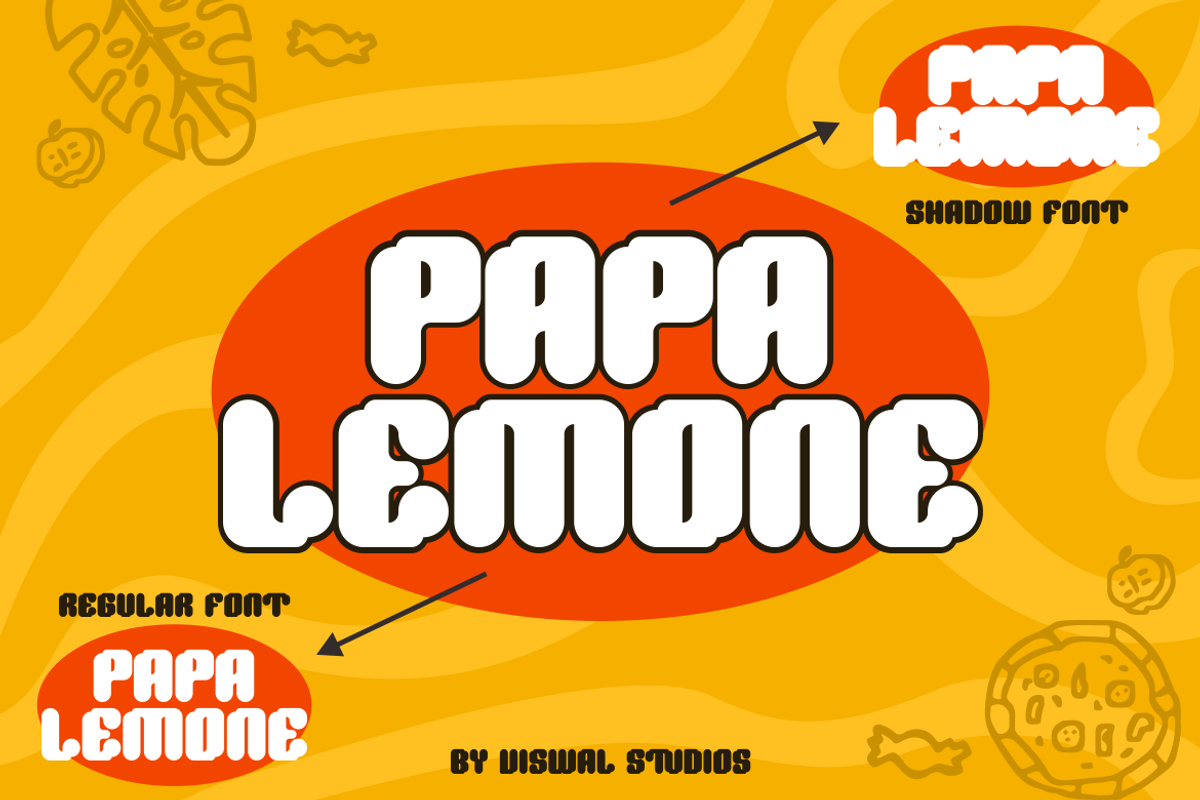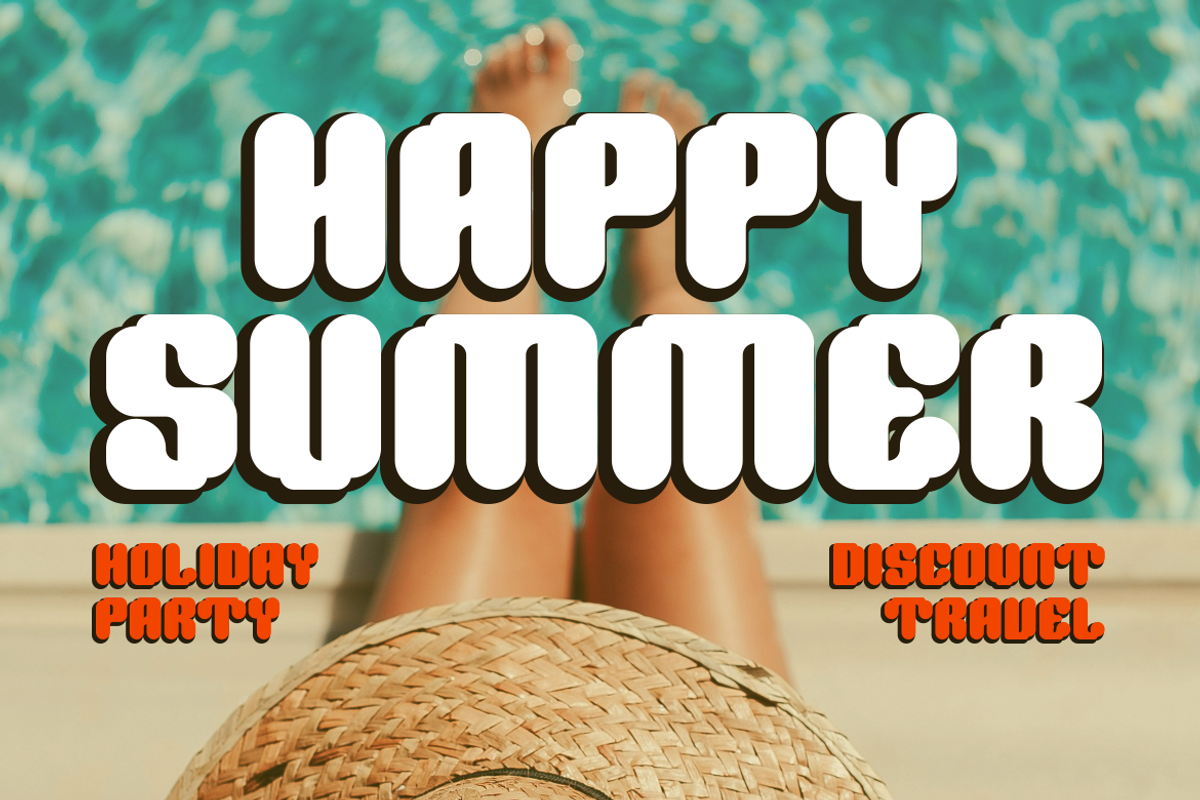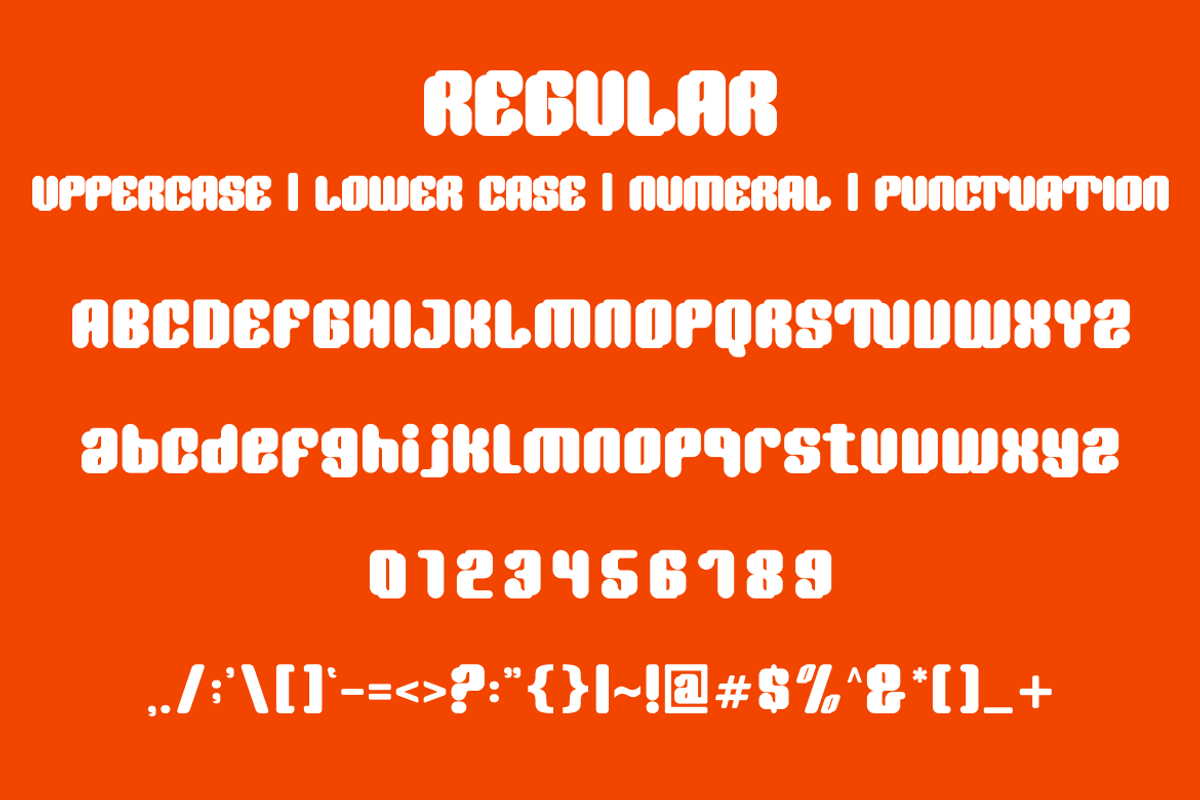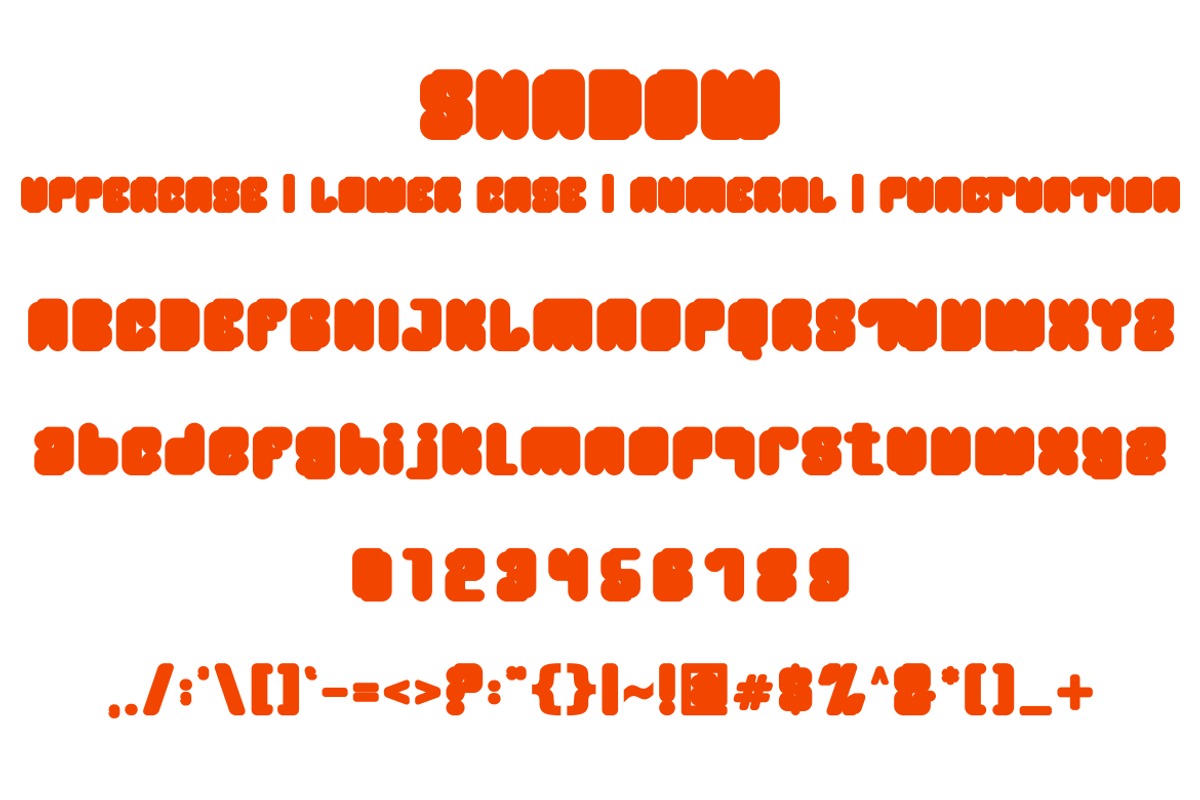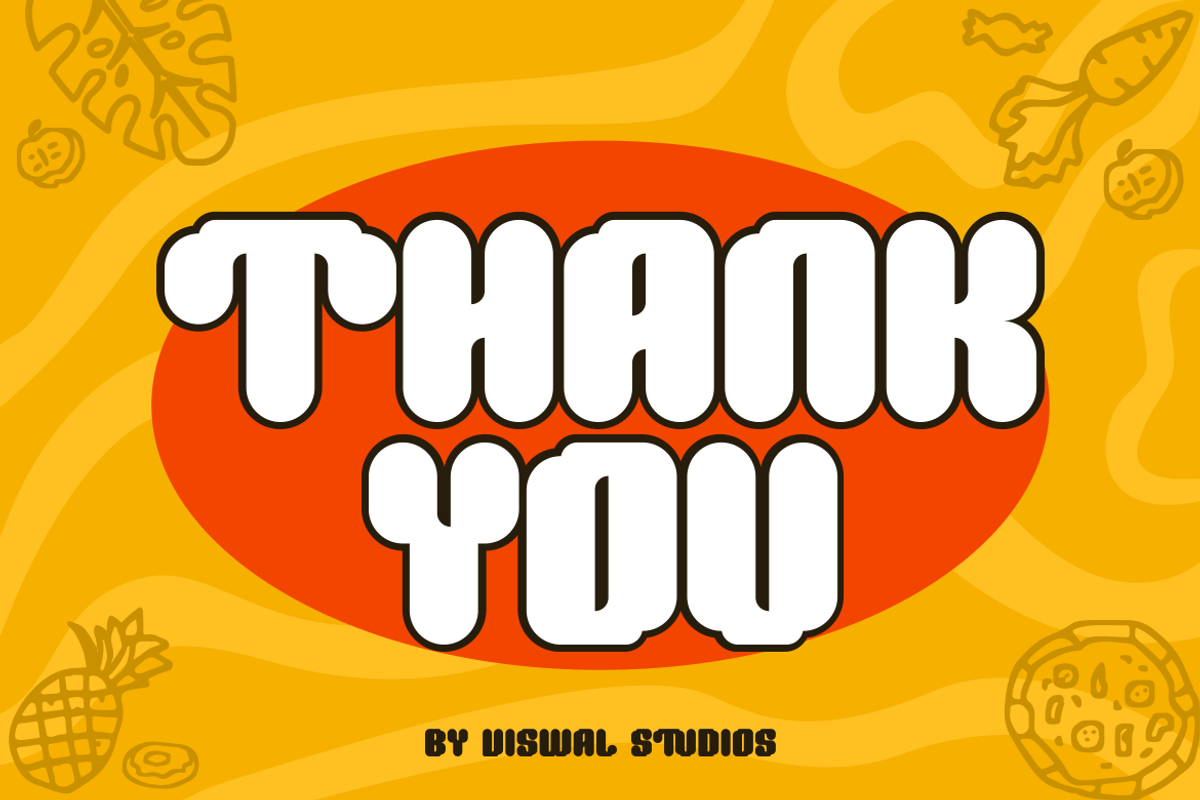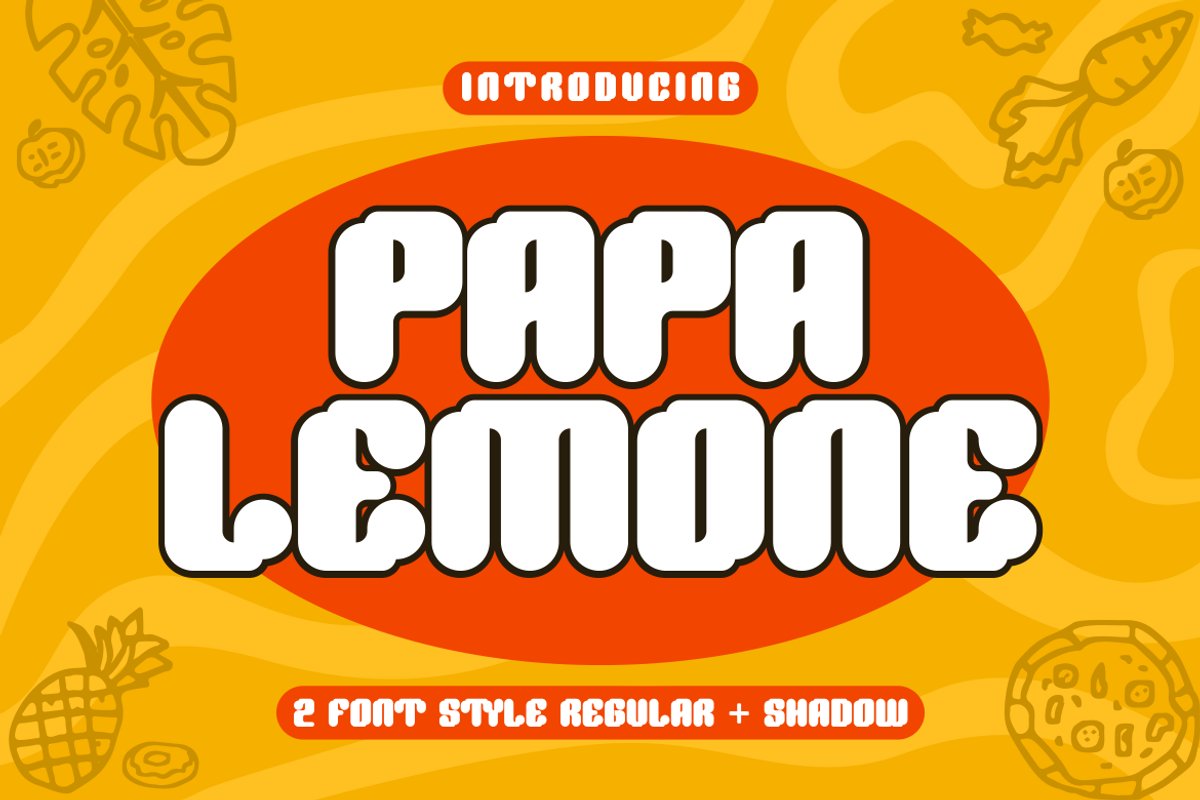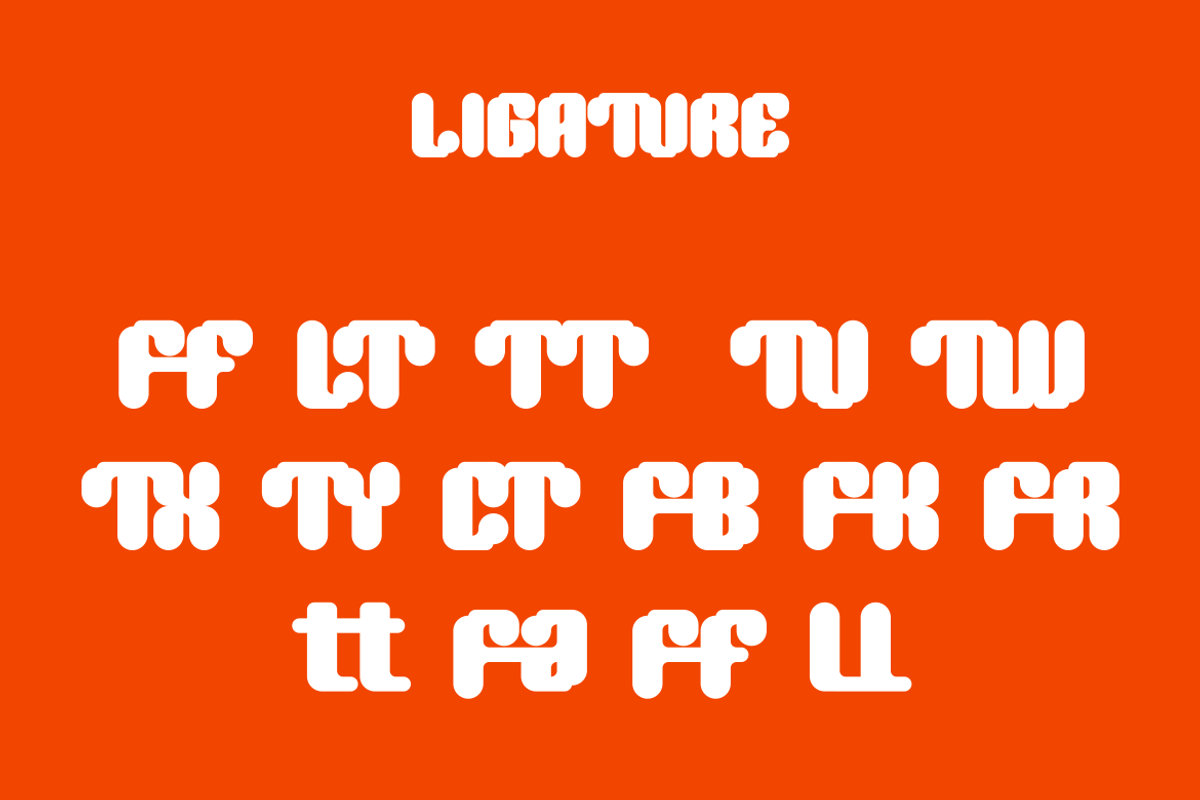
PAPA LEMONE - Playful Font
Presenting PAPA LEMONE Is A Playful Font.
Can Make It Easier To Convey The Message In Your Design. Font Is Suitable For Logo, Labels, Badge, Branding, Magazine, Poster, Title, Gigs, Covers And Etc. Our Fonts Have Uppercase & Lowercase, Numeral & Punctuation, And Opentype Features. For Amazing Designs You Can Mix With Other Fonts As A Complement.